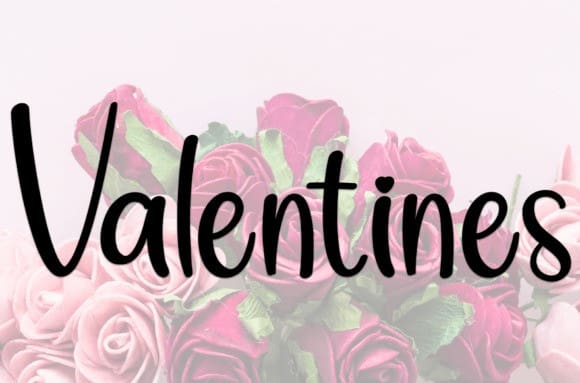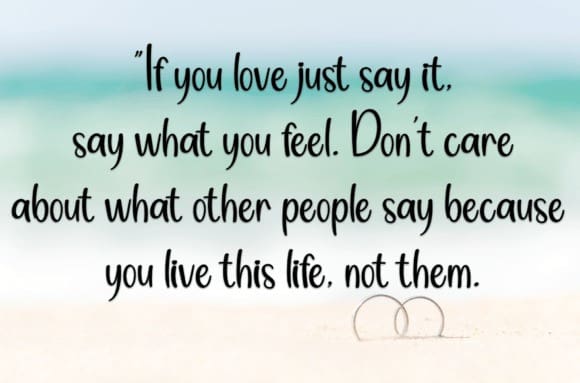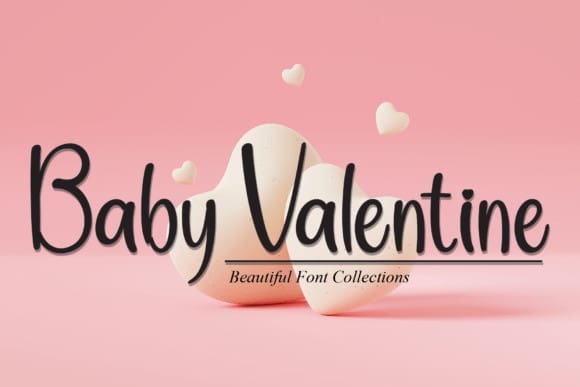
Baby Valentine Font
Baby Valentine Font is a sweet and friendly handwritten font. Cute and fun, this font is ideal for writing wedding invitations, cards, or any other design that might need a fun touch!